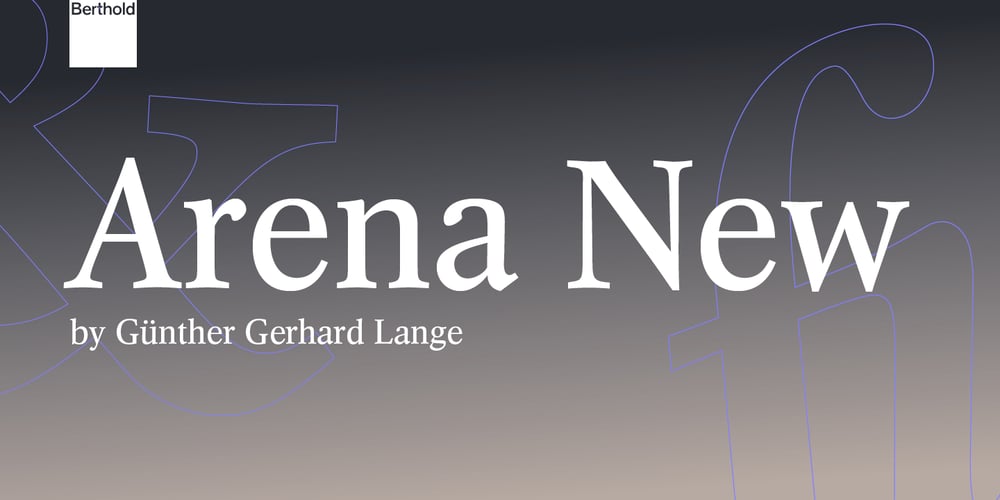
Arena New Font Family was designed by Günter Gerhard Lange and published by Berthold. Arena New contains 8 styles and family package options. Günter Gerhard Lange designed this original face for Berthold from 1951-1954. Arena New is a contemporary text face, with an element of style missing from most text faces. It is a very original design.